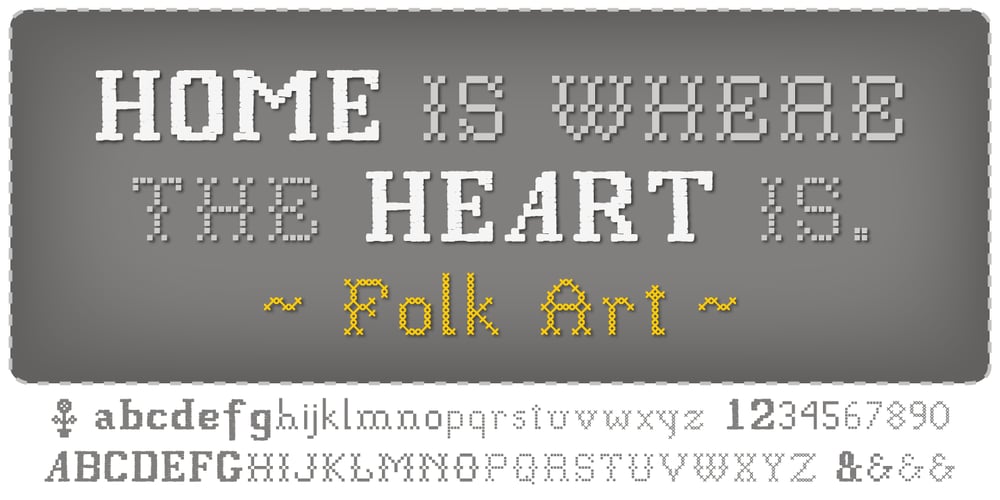
P22 Folk Art Font Family was designed by Michael Want, Richard Kegler and published by P22 Type Foundry. P22 Folk Art contains 3 styles and family package options. Primarily based on the work of German settlers in Pennsylvania, this collection showcases a variety of needlework and folk art styles of the early United States. Produced in conjunction with the Philadelphia Museum of Art, this set is a digital recreation of homespun Americana.